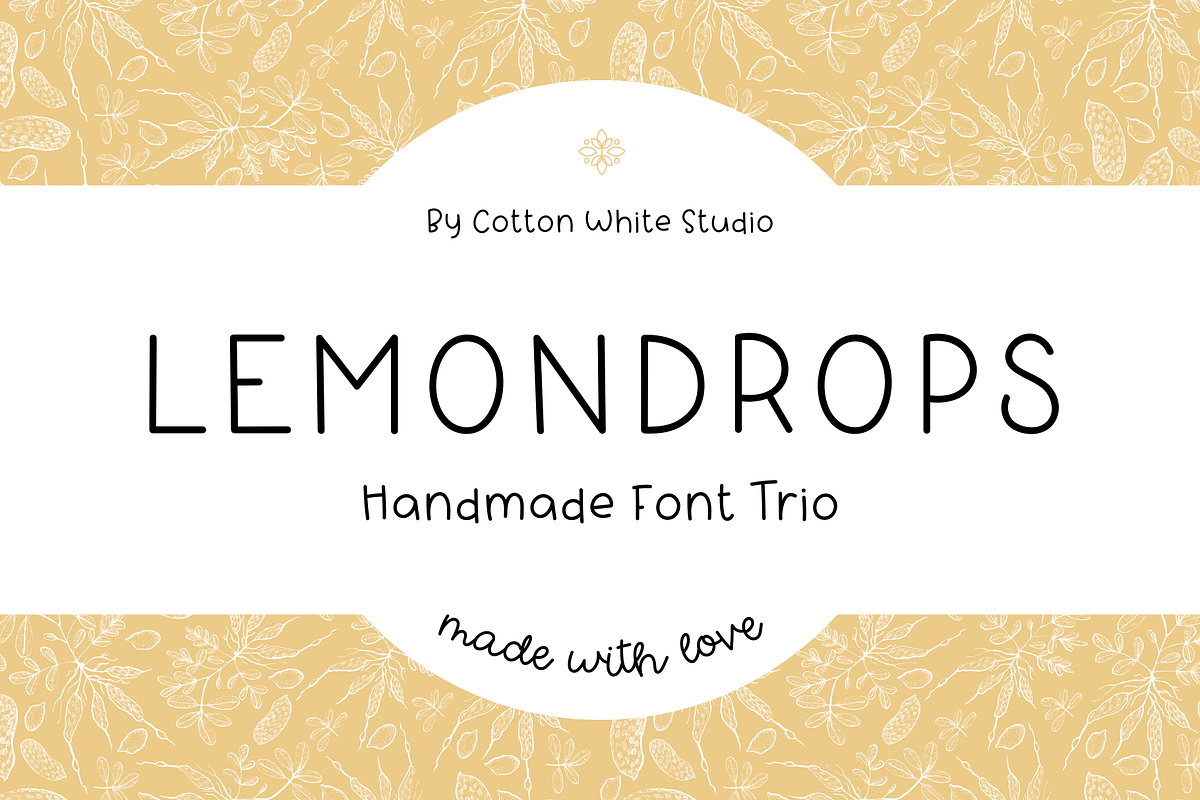
Please note, you must purchase this font for commercial use. However, you can easily download Lemondrops Font Trio Free Download for personal use and testing purposes. Lemondrops Font Trio is a playful and versatile font bundle that includes three unique fonts, offering a combination of script, serif, and sans-serif styles. Perfect for a wide range of design projects, including branding, invitations, logos, and social media graphics, this trio brings a fresh, cheerful vibe to your typography. Whether you're creating a fun brand identity, a vibrant invitation, or trendy marketing materials, Lemondrops Font Trio Free Download gives you the flexibility and creativity you need. Download Lemondrops Font Trio Free Download today and explore its potential before opting for a commercial license.